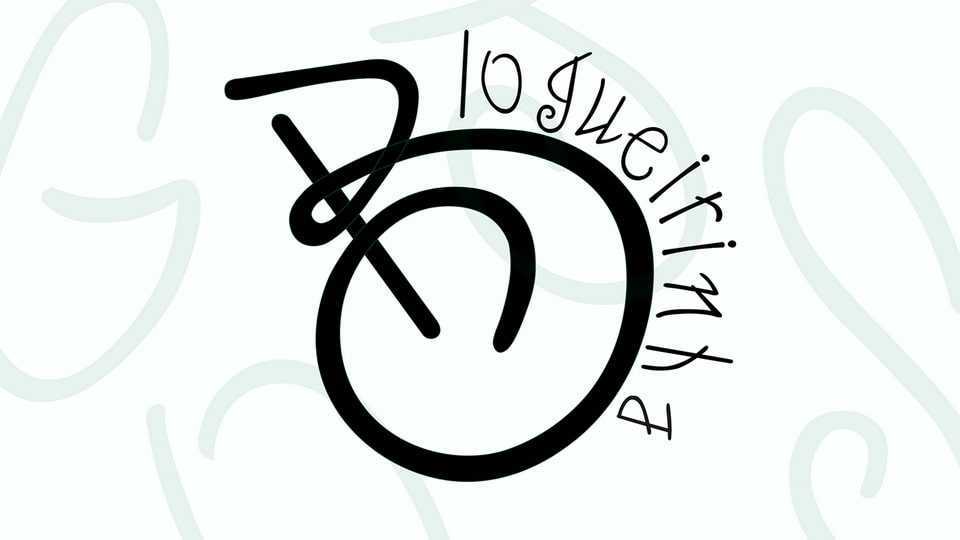
Blogueirinha Font › Fontesk – Fonte Grátis
Download Blogueirinha font, a casual handwritten typeface perfect for adding a natural, and organic vibe to any project. The font is designed to look clear and chic in small formats like texts, quotes, and social media posts.
Designer: Isabela B. Cristiano